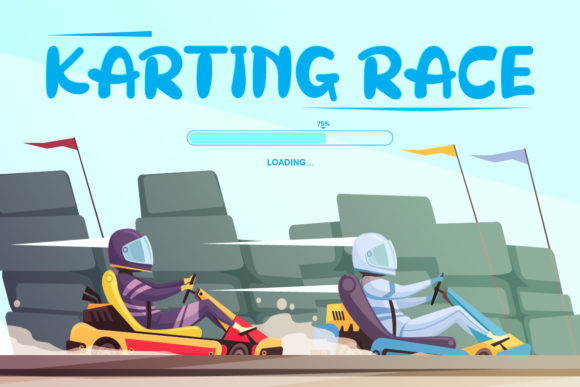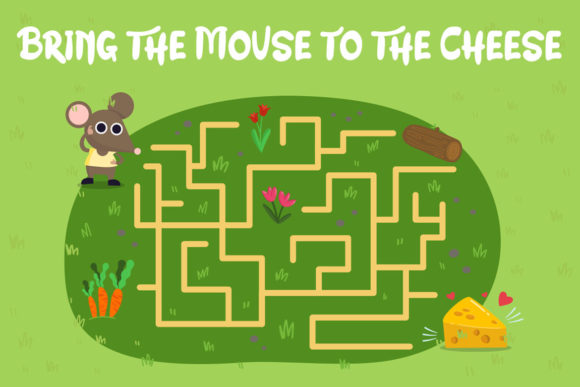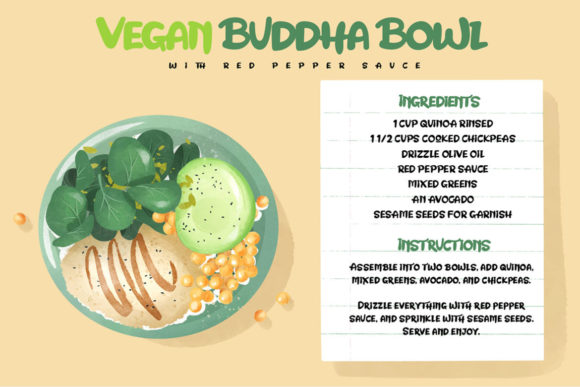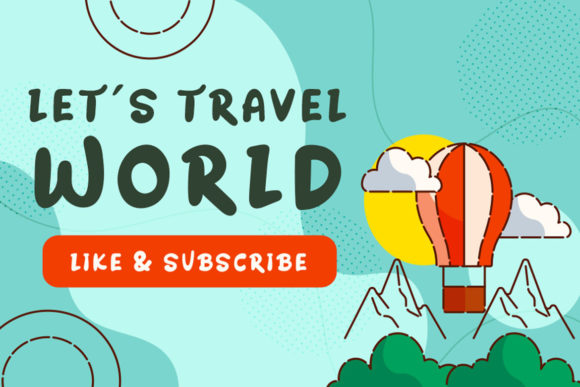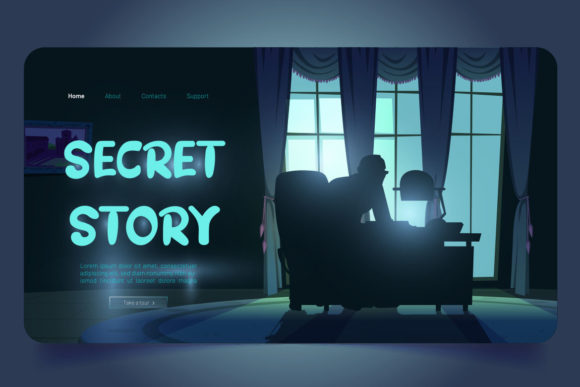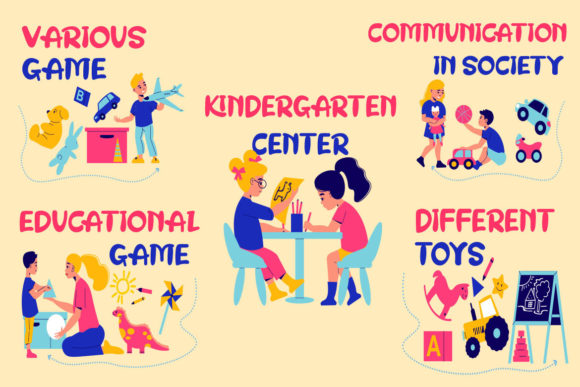
The Allay Font: A Bold, Playful Companion for Creative Projects
I’ll never forget the time I was working on a children’s activity book, pouring my heart and soul into making it fun and engaging. But as I was designing the title page, I hit a roadblock – I just couldn’t find the right font. That was until I stumbled upon the Allay font, a bold, playful, and fun display font that embodies joy and authenticity. It was love at first sight! 💕
An Honest Review of Allay Font
What I Love About Allay Font
- ✨ Unique and eye-catching design: Allay font stands out from the crowd with its bold and playful style, making it perfect for children’s activity books, school projects, and more.
- ✅ Easy to read: Despite its bold design, Allay font is surprisingly easy to read, even at smaller sizes.
- 🎉 Versatile: Allay font can be used for a wide range of creative projects, from posters and flyers to social media graphics and more.
While Allay font is an amazing addition to any design project, there are a few things to keep in mind:
- 🤔 Not suitable for body text: Due to its bold design, Allay font is best used for headlines and titles, rather than body text.
- ⚠️ Limited use of OpenType features: While Allay font does offer some OpenType features, such as glyphs and stylistic alternates, it’s not as extensive as some other fonts.
The Backstory of Allay Font
The Allay font was designed with one goal in mind: to create a bold, playful, and fun display font that embodies joy and authenticity. The designer wanted to create a font that would bring a smile to people’s faces and inspire creativity. With its unique and eye-catching design, Allay font is sure to become a favorite among designers, crafters, and creative hobbyists.
Q: What is the Allay font best used for?
A: The Allay font is best used for creative projects that require a bold, playful, and fun display font, such as children’s activity books, school projects, posters, and social media graphics.
Q: Is the Allay font easy to read?
A: Yes, despite its bold design, the Allay font is surprisingly easy to read, even at smaller sizes.